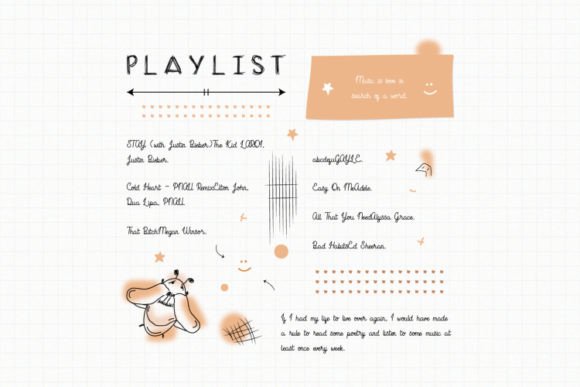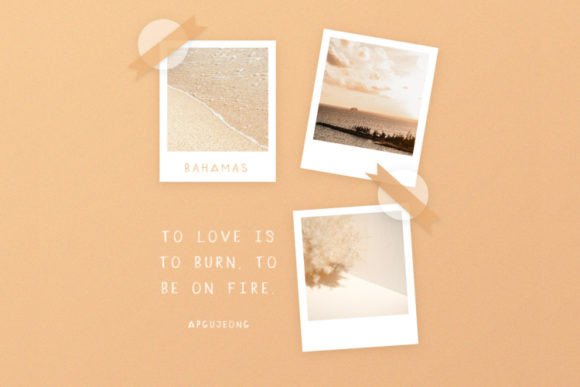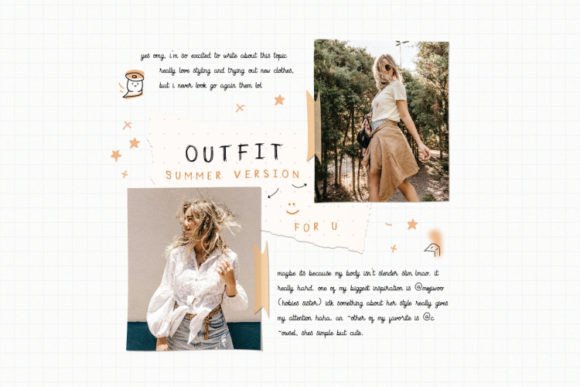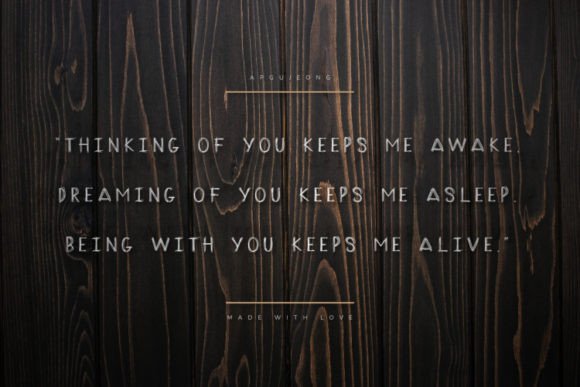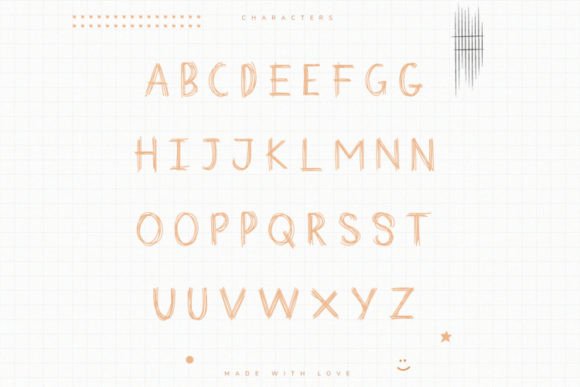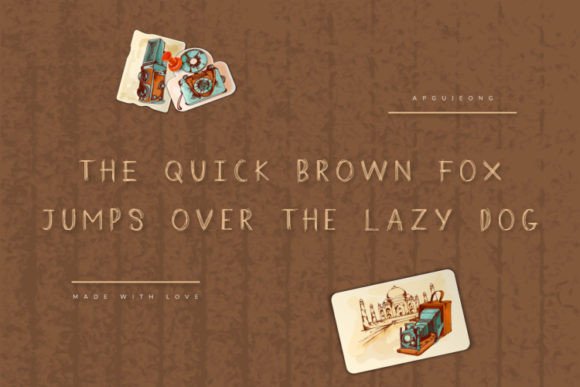
Discover the Quirky Charm of Apgujeong Font: Elevate Your Designs with this Unique Display Font
Are you tired of using the same old fonts in your designs? Look no further than Apgujeong Font, a cool and unique display font that’s sure to add a touch of personality to your projects. With its quirky charm and versatility, Apgujeong Font is perfect for designers and crafters looking to make a statement.
What is Apgujeong Font?
Apgujeong Font is a display font that’s a little bit quirky, but incredibly effective. Its unique design makes it stand out from more traditional fonts, and its versatility means it can be used in a wide variety of contexts. Whether you’re designing a logo, creating a poster, or crafting a social media graphic, Apgujeong Font is sure to add a touch of personality to your work.
Key Features of Apgujeong Font
- Unique Design: Apgujeong Font has a one-of-a-kind design that’s sure to grab attention. Its quirky charm makes it perfect for designs that need a bit of personality.
- Versatility: Despite its unique design, Apgujeong Font is incredibly versatile. It can be used in a wide range of contexts, from logos and posters to social media graphics and more.
- Display Font: Apgujeong Font is a display font, making it perfect for headlines, titles, and other attention-grabbing elements.
Why Use Apgujeong Font?
So why should you use Apgujeong Font in your designs? Here are just a few reasons:
- Add Personality: Apgujeong Font adds a touch of personality to your designs, making them more engaging and memorable.
- Stand Out: With its unique design, Apgujeong Font helps your designs stand out from the crowd.
- Easy to Read: Despite its quirky design, Apgujeong Font is easy to read, making it perfect for use in a variety of contexts.
How to Use Apgujeong Font
Using Apgujeong Font is easy. Here are a few tips to get you started:
- Pair with Other Fonts: Apgujeong Font pairs well with other fonts, making it easy to create visually appealing combinations.
- Use for Headlines: Apgujeong Font is perfect for use in headlines and titles, where its unique design can really shine.
- Experiment with Colors: Apgujeong Font looks great in a variety of colors, so don’t be afraid to experiment and find the perfect hue for your design.
Design Inspiration with Apgujeong Font
Apgujeong Font is a versatile font that can be used in a wide range of design contexts. Here are a few ideas to get you started:
- Posters: Use Apgujeong Font to create eye-catching posters for events, promotions, or products.
- Logos: Apgujeong Font makes a great logo font, adding a touch of personality to your brand.
- Social Media Graphics: Use Apgujeong Font to create engaging social media graphics that stand out from the crowd.
Apgujeong Font is a unique and versatile display font that’s perfect for designers and crafters looking to add a touch of personality to their projects. With its quirky charm and ease of use, Apgujeong Font is sure to become a go-to font in your design arsenal. So why not give it a try and see the difference it can make in your designs?